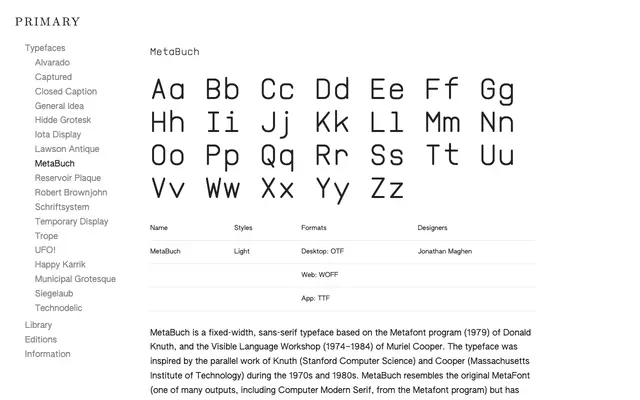
MetaBuch
A fixed-width sans by Jonathan Maghen drawn from Donald Knuth's Metafont program and the Visible Language Workshop of Muriel Cooper, with a high x-height and overshoots added for legibility.
Inspired by the parallel computing and design research of Knuth at Stanford and Cooper at MIT during the 1970s and 1980s, MetaBuch borrows the skeletal structure of Metafont's output while adding practical refinements. A high x-height and optical overshoots make it serviceable at text sizes as well as display, unusual for a fixed-width face of this lineage. The character set covers 120 glyphs including basic Latin, lining figures, ligatures and alternates, and is available in a single Light weight across desktop, web and app formats.
MetaBuch is explicitly described as a fixed-width, sans-serif typeface, placing it squarely in the monospaced category despite its dual suitability for display and text use.